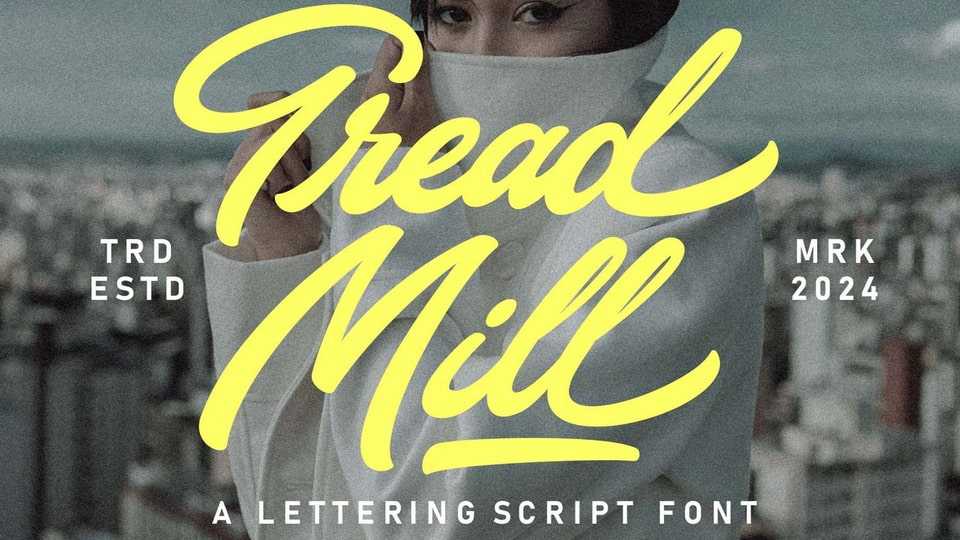
Download Tread Mill font, a lettering script with a touch of vintage look and feel. The swashes makes this font looks great for lettering which you can create in a sec!